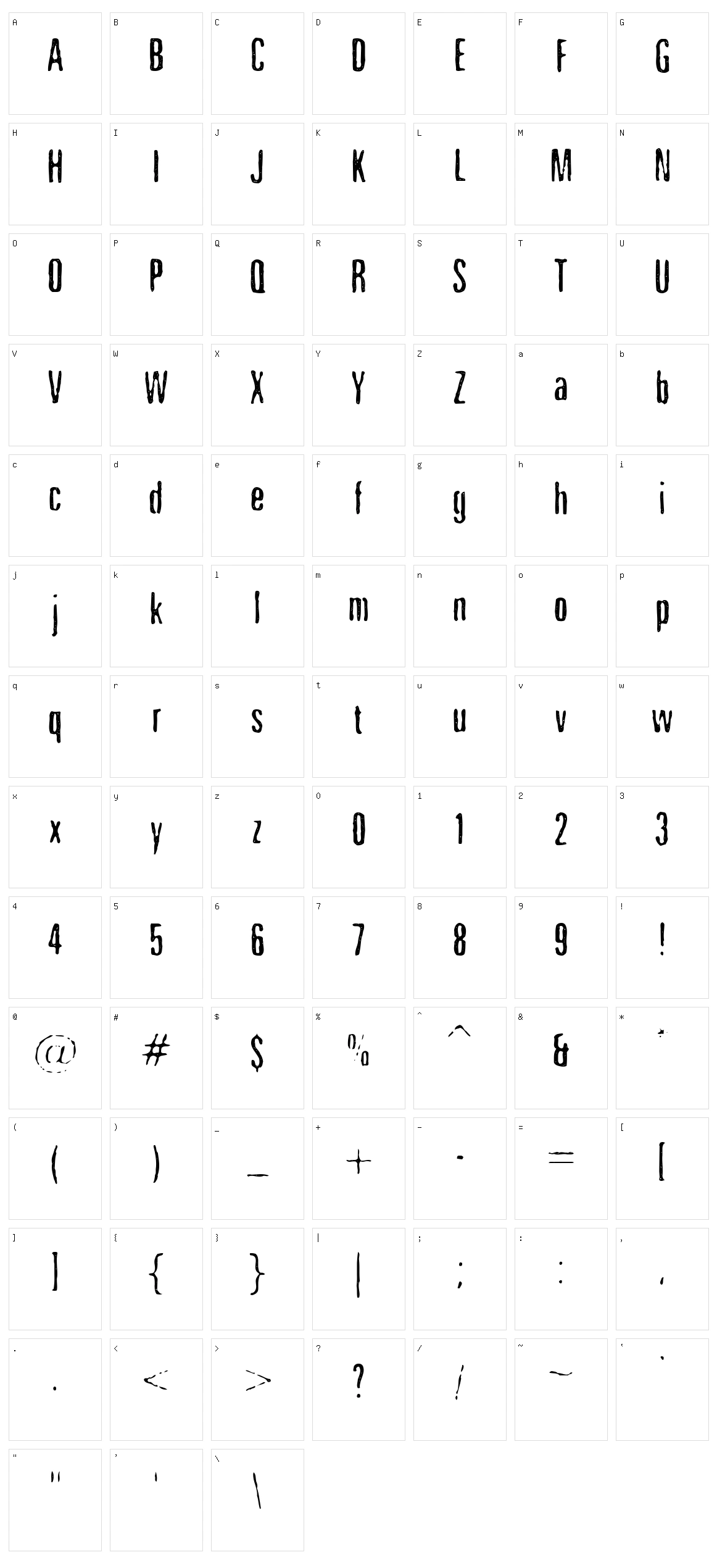
NICOTINE STAINS
A TrueType Font by S. John Ross
I've only done a few "stressed" fonts (fonts created by taking scans or bitmaps of traditional type and whacking 'em repeatedly with a lead pipe), but I remain fascinated by the artform (an artform often dismissed as artless by some creators of pure-math type). Living in Austin, where live music is a very serious part of the local culture and economy, I see new posters for local bands plastered on walls, posts and other surfaces nearly every day, and the kinds of people who make bar-band posters love a good stressed font. So do I!
Nicotine Stains is the result of continual exposure to these things, I guess, and what amounts to a dirty little thrill from seeing nice, clean, symmetrical type thrashed and mangled. I regard myself as a knight in whatever army opposes the symmetrical and regular things in the world, a champion of the rumpled, the worn, the comfortably lived-in and casually discarded. Nothing makes me more nervous than visiting the house of somebody who keeps the plastic wrappers on their lampshades. . .
Nicotine Stains is a full keyboard set with my usual smattering of extended characters thrown in. Advertise your band today!